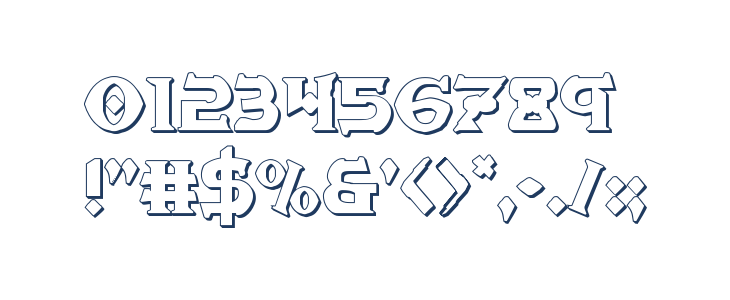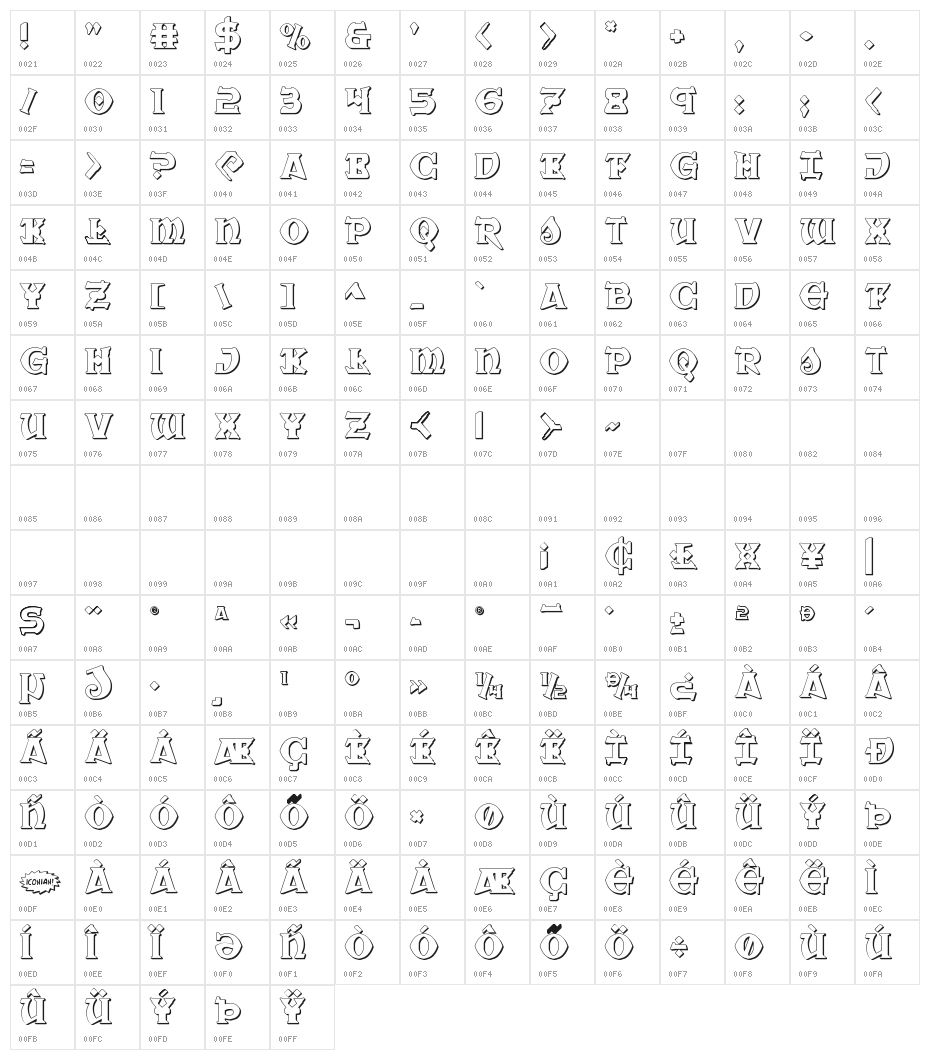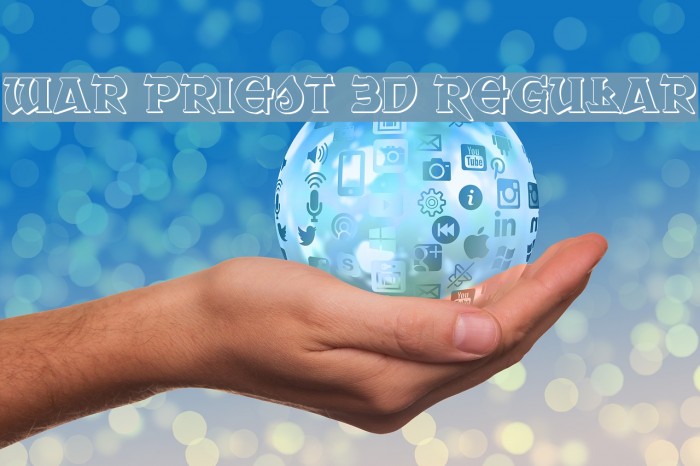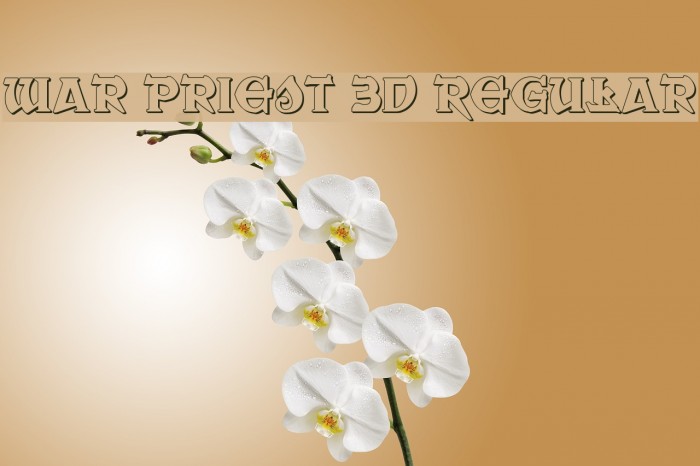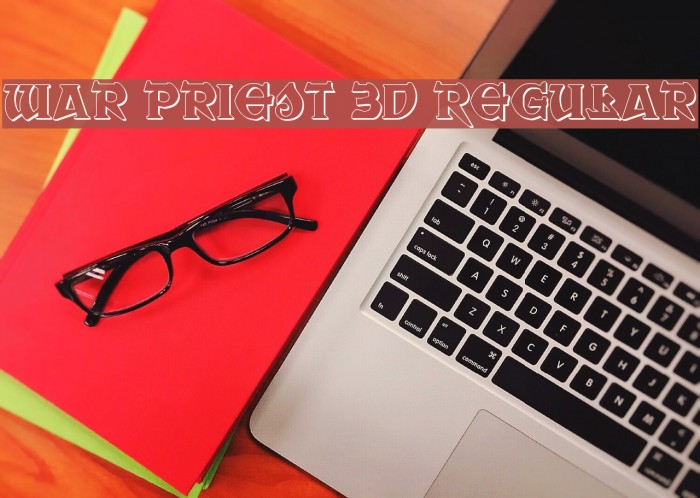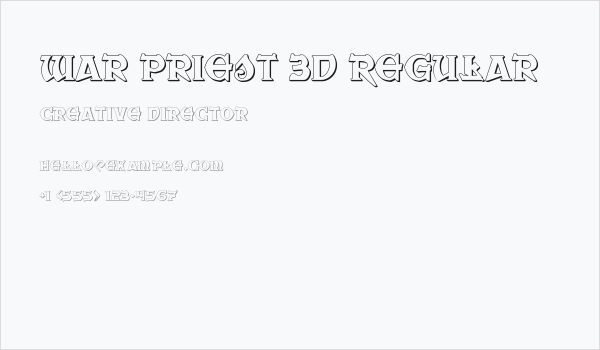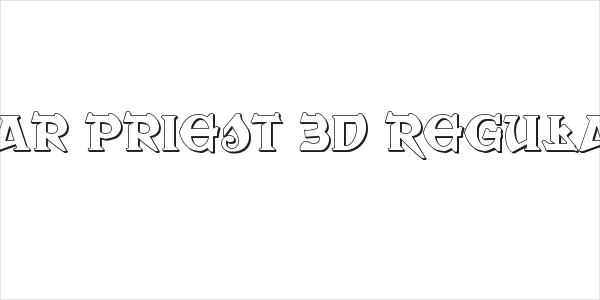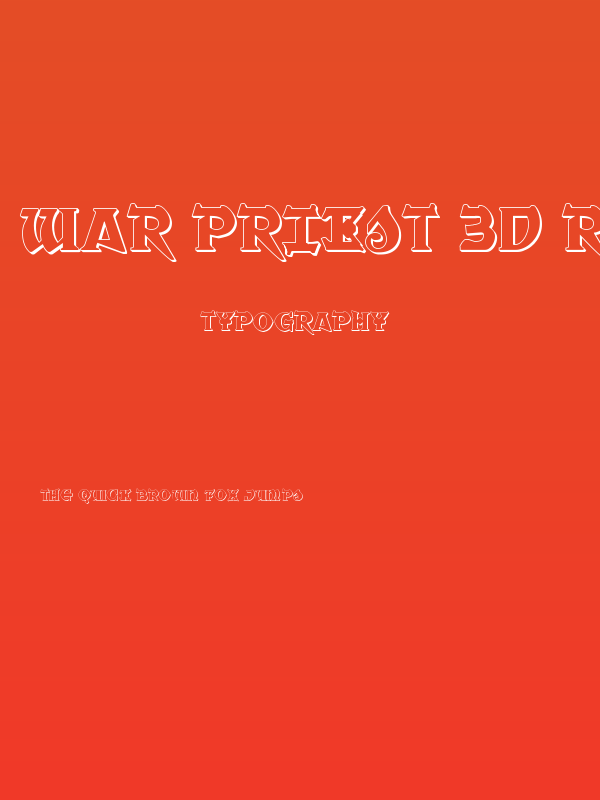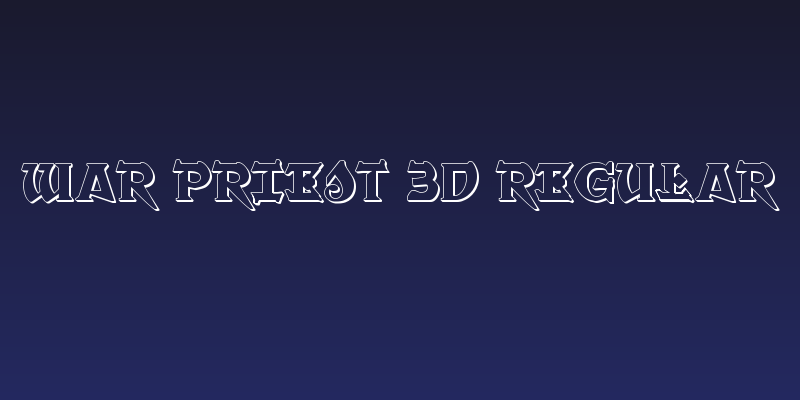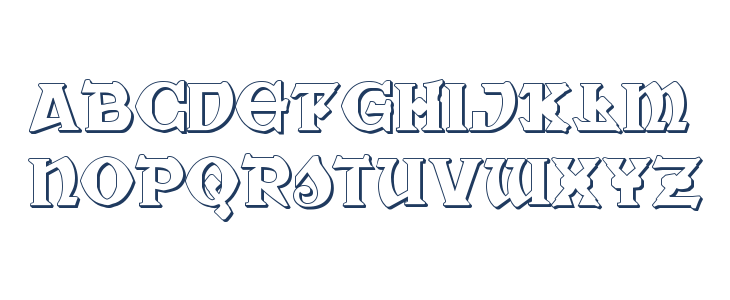
War Priest 3D Regular Font
War Priest 3D Regular Description
This font features a bold, three-dimensional appearance with a strong, angular design. The characters are outlined, giving them a distinct shadow effect that enhances the 3D illusion. The style is reminiscent of medieval or fantasy themes, with sharp edges and a slightly aggressive look. The uppercase and lowercase letters maintain a consistent style, while the numbers and special characters complement the overall design. This font is particularly eye-catching and would stand out in any graphic design project.
| Proposed Projects | Ideal for fantasy-themed posters, video game titles, or any project requiring a dramatic, eye-catching typeface. |